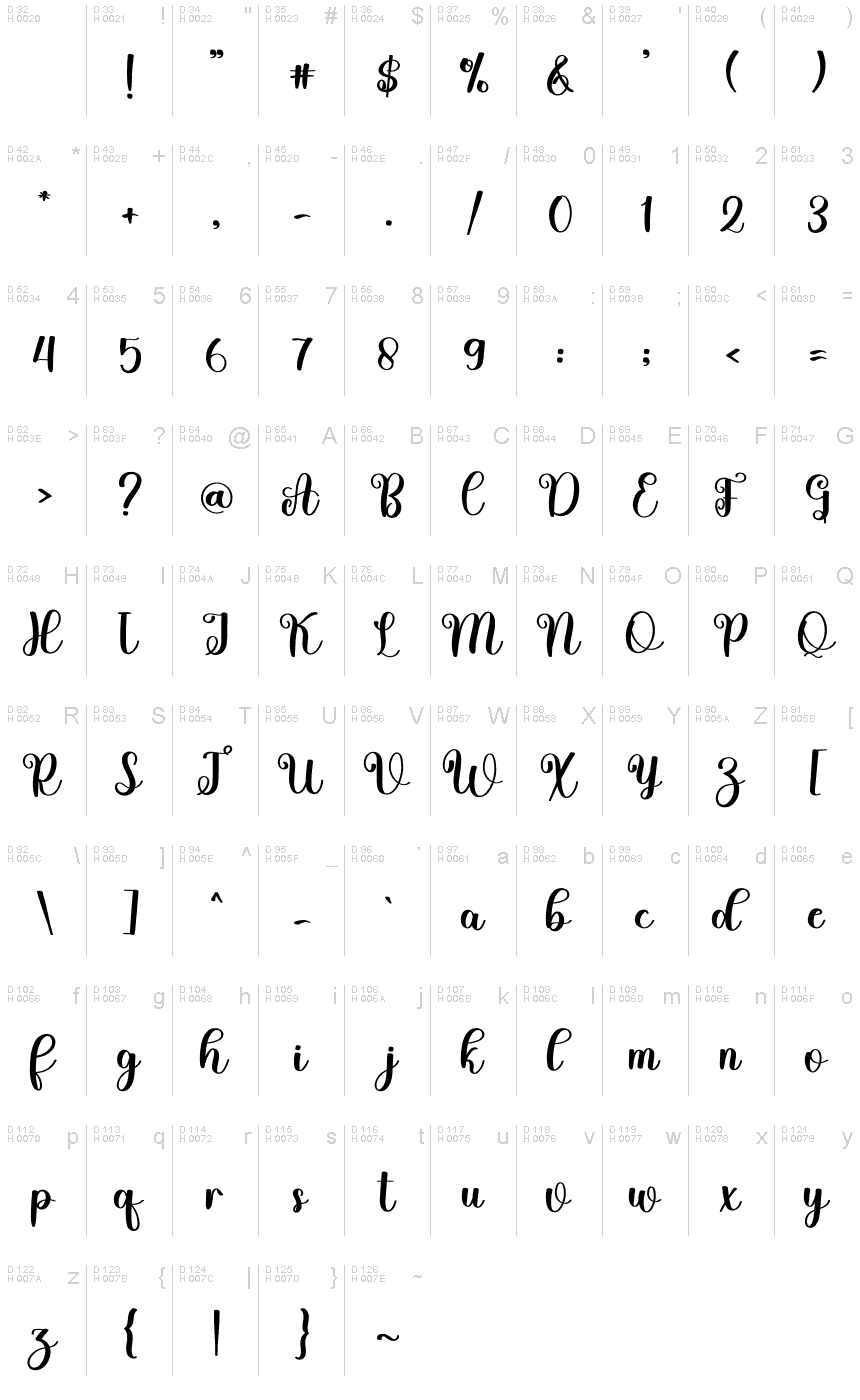
Cattys
Cattys, a light narrow font designed by FreshtypeINK, is the perfect choice for projects requiring a playful and unique calligraphy style. From invitations to branding, Cattys is sure to make your project stand out.